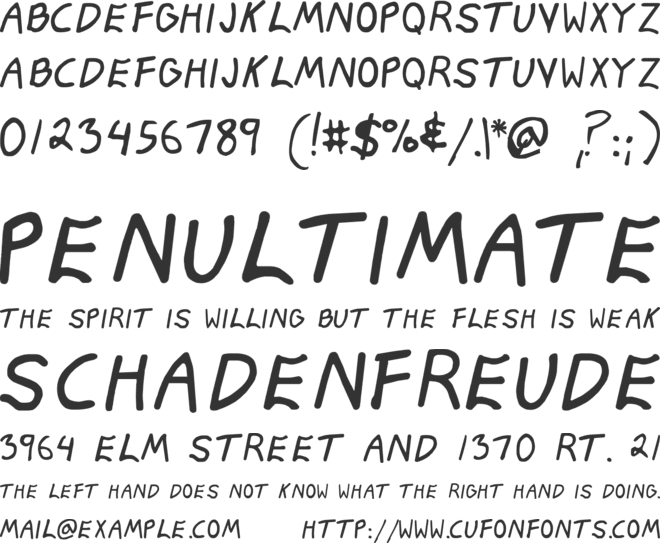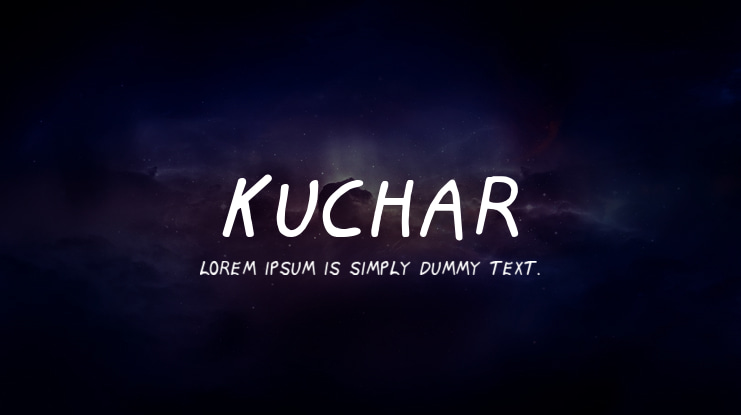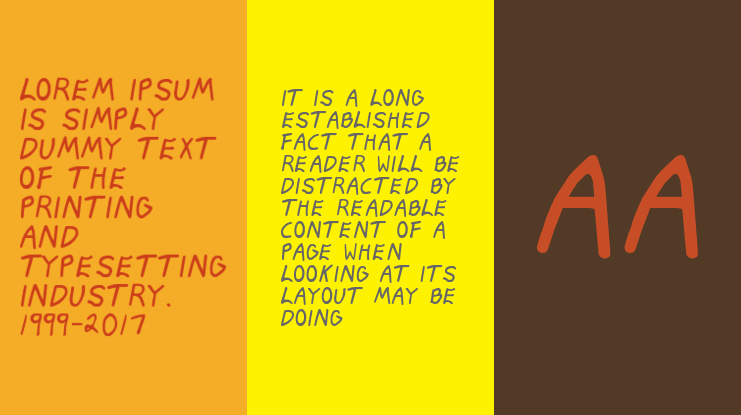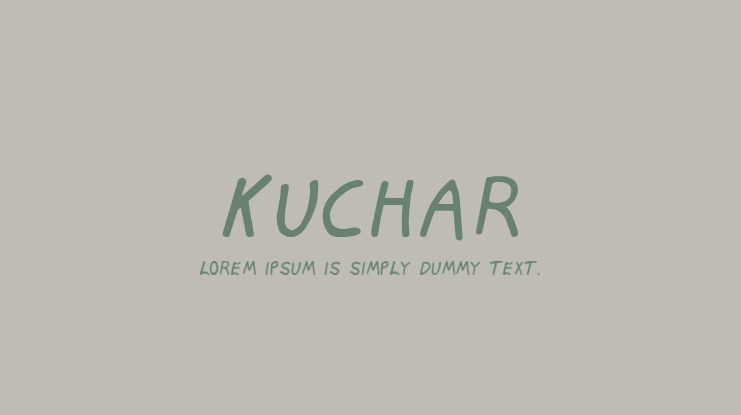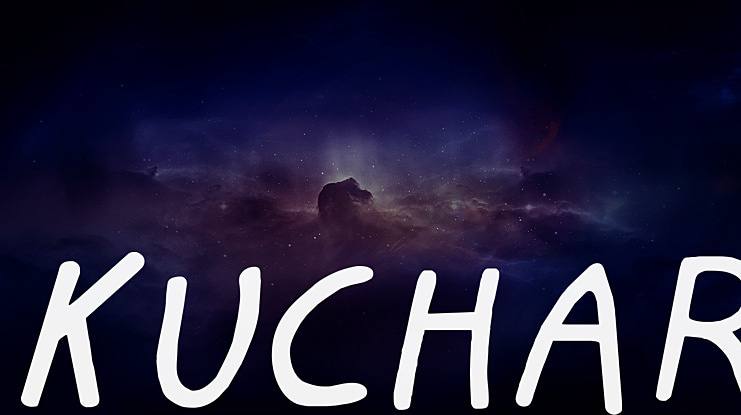
KUCHAR Font
THIS FONT, KUCHAR, WAS CREATED BY SFAI STUDENTS CORY BATES, TYLER CROSS, MICHAEL FIGGE, ERIN HALL, ELISE INFERRERA, ANTONIA KIMATIAN, ROMAN KOVAL, JOEY KUO, RIHO KUREMATSU, NOELL NELSON, KELLY NETTLES, KEGAN SNYDER, DAYNA ROCHELLE STANLEY, AND SFAI FACULTY JD BELTRAN IN THEIR SPRING 2012 SFAI TYPOGRAPHY CLASS.
KUCHAR WAS BASED ON GEORGES HANDWRITING ON THE LABELS OF HIS VHS and MINI-DV TAPES.